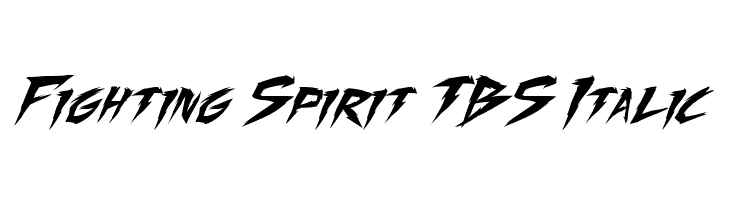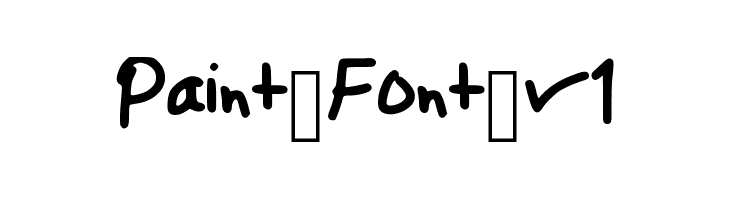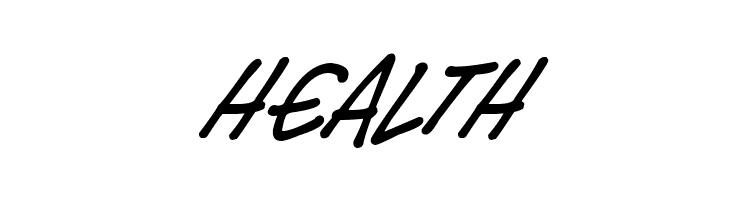
A bold, dynamic font with sharp, angular strokes and an italicized style.
A bold, dynamic font with slanted letters enclosed in black squares, offering a modern and impactful style.
A bold, geometric, italic font with a three-dimensional outline.
A cryptic, geometric font with an ancient, mysterious aesthetic.
A dynamic, handwritten font with expressive, fluid strokes.
A dripping, liquid-like font ideal for dramatic and eerie designs.
A bold, distressed font with a vintage, rugged appearance.
A playful, bold font with rounded, flowing characters and a hand-drawn feel.
A playful, outlined script font with bold, rounded edges and whimsical flair.